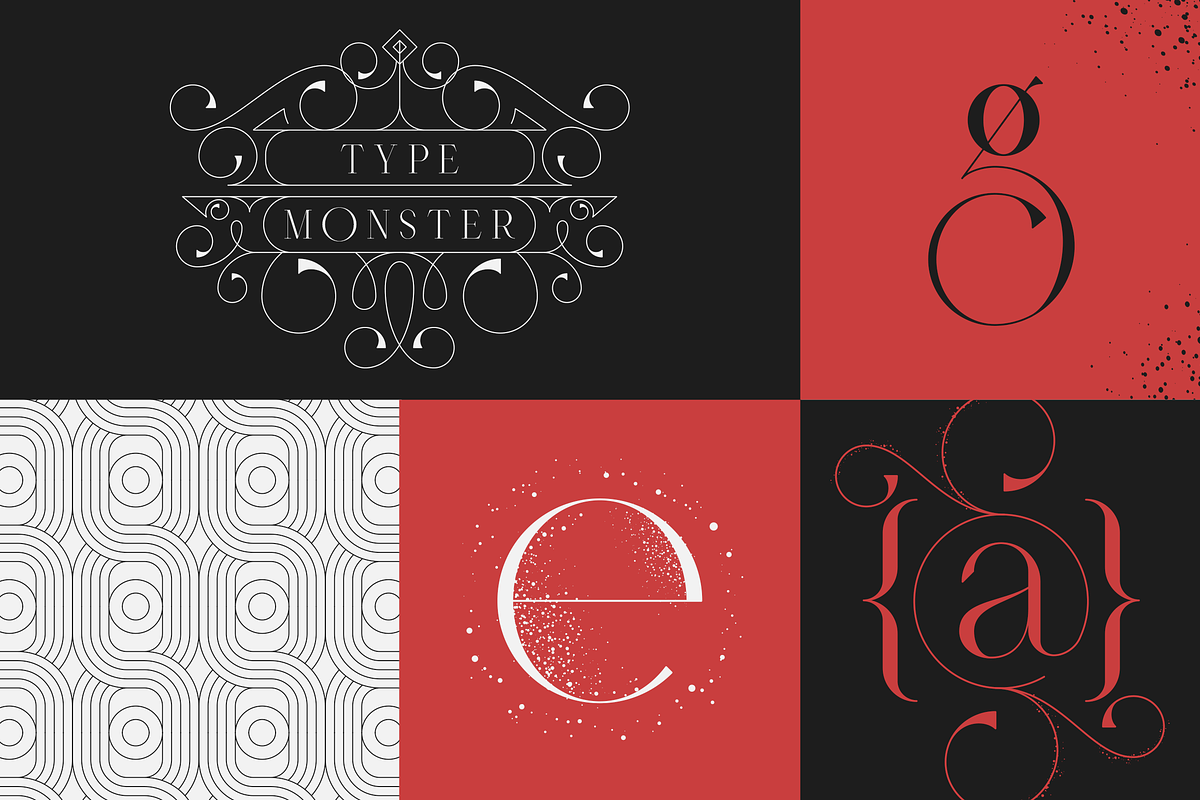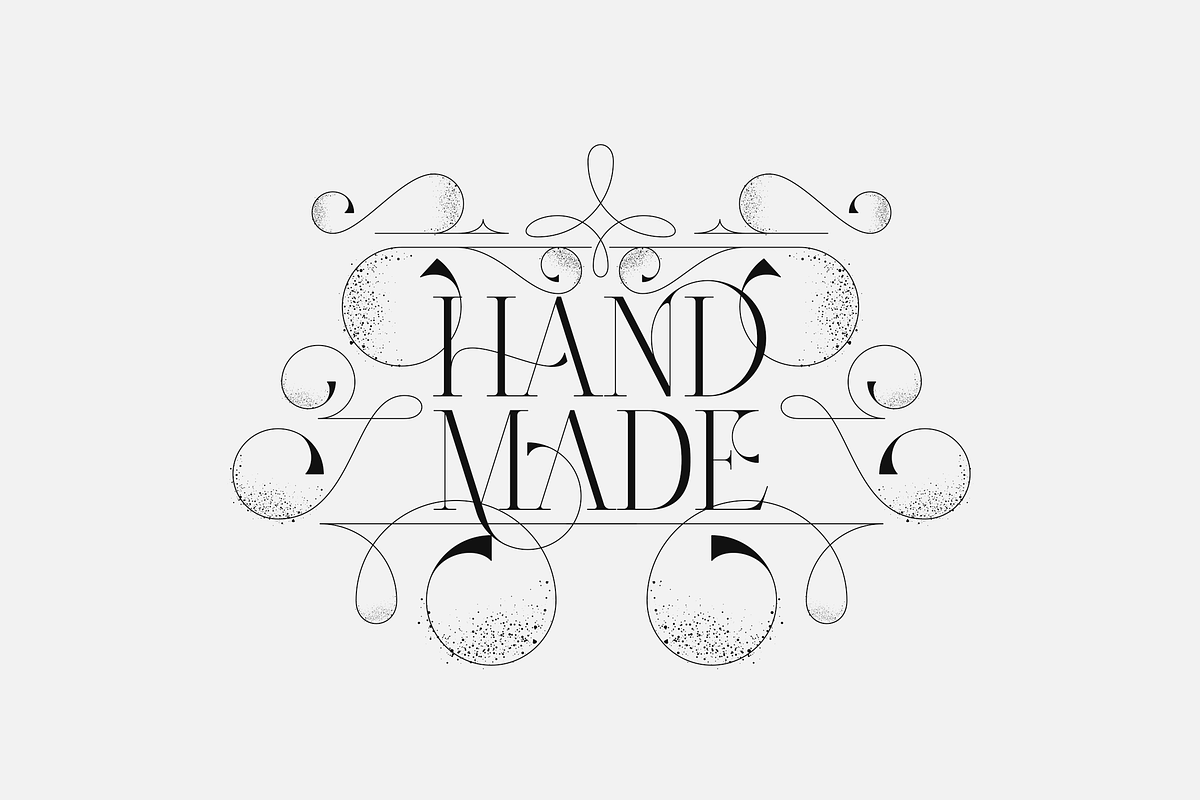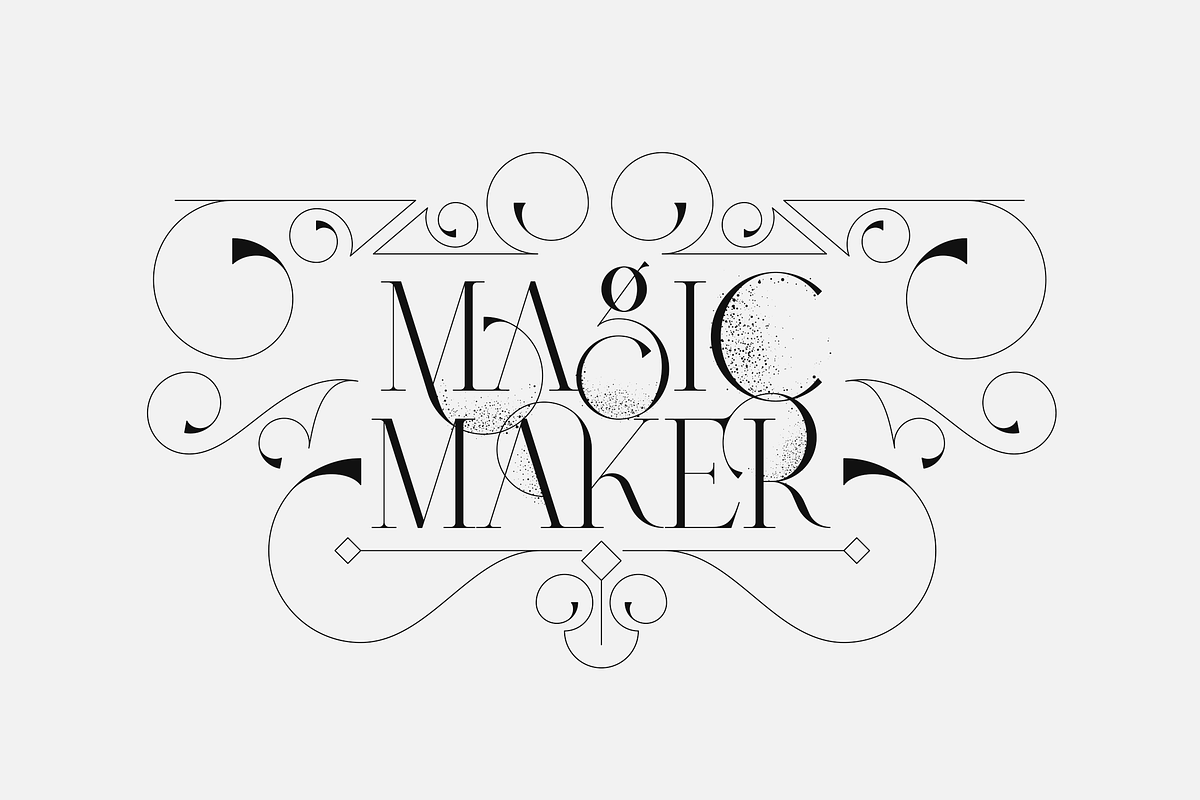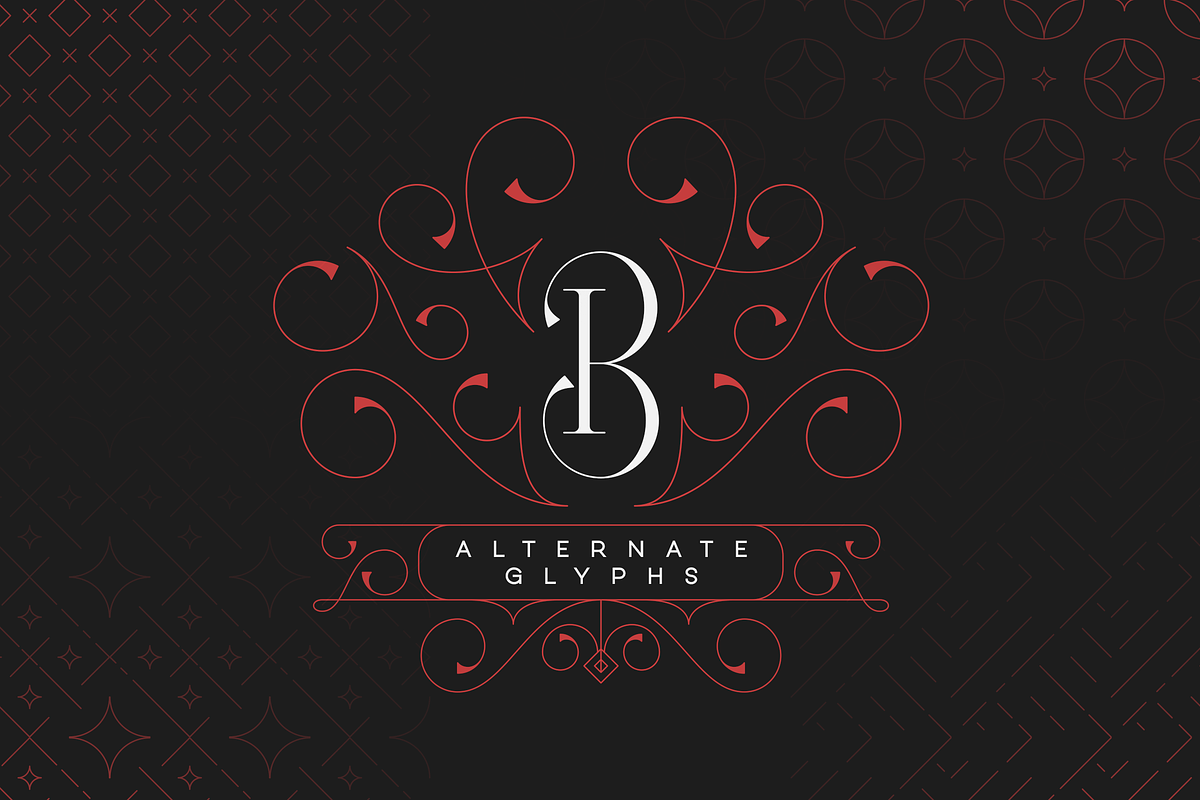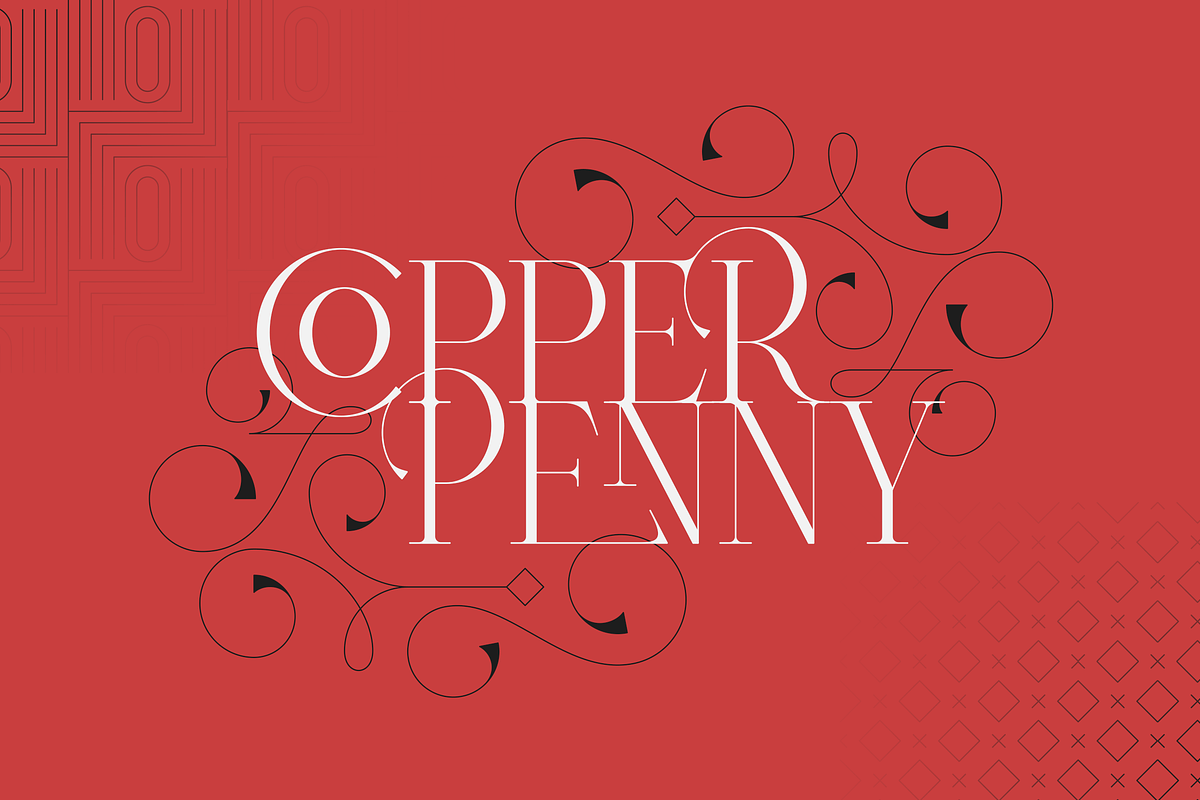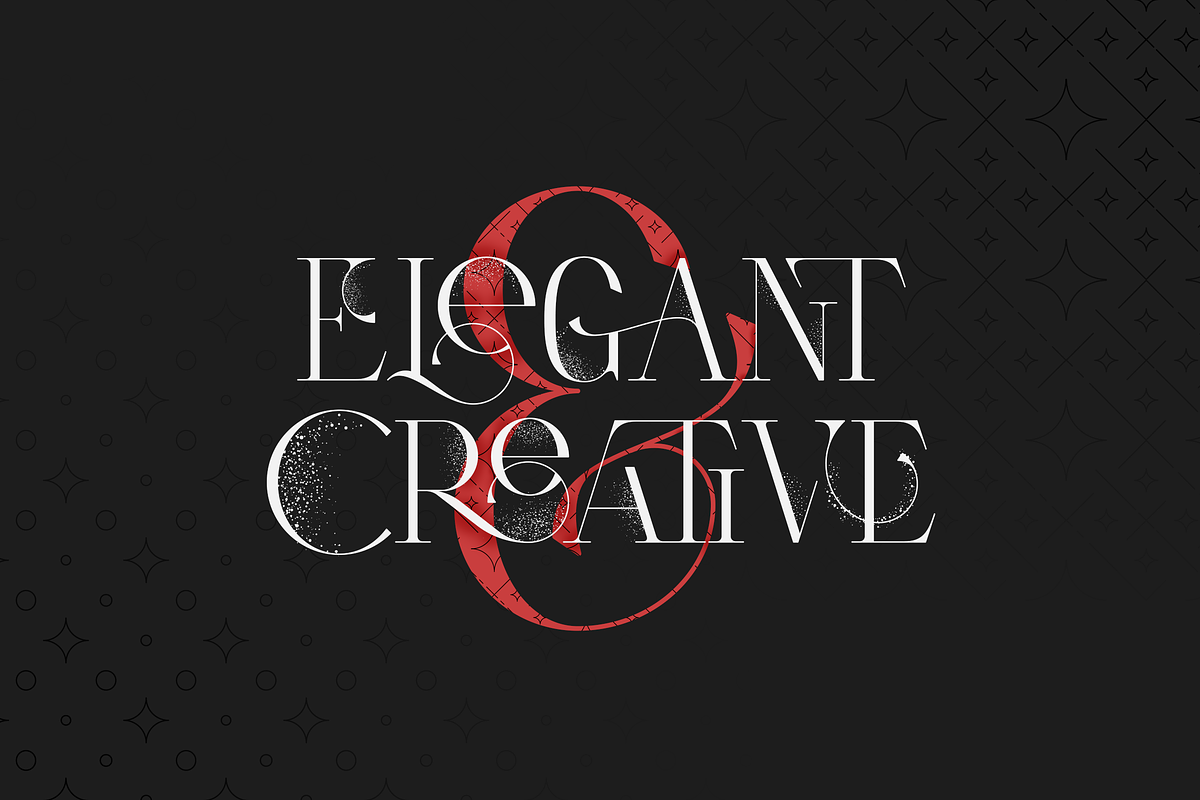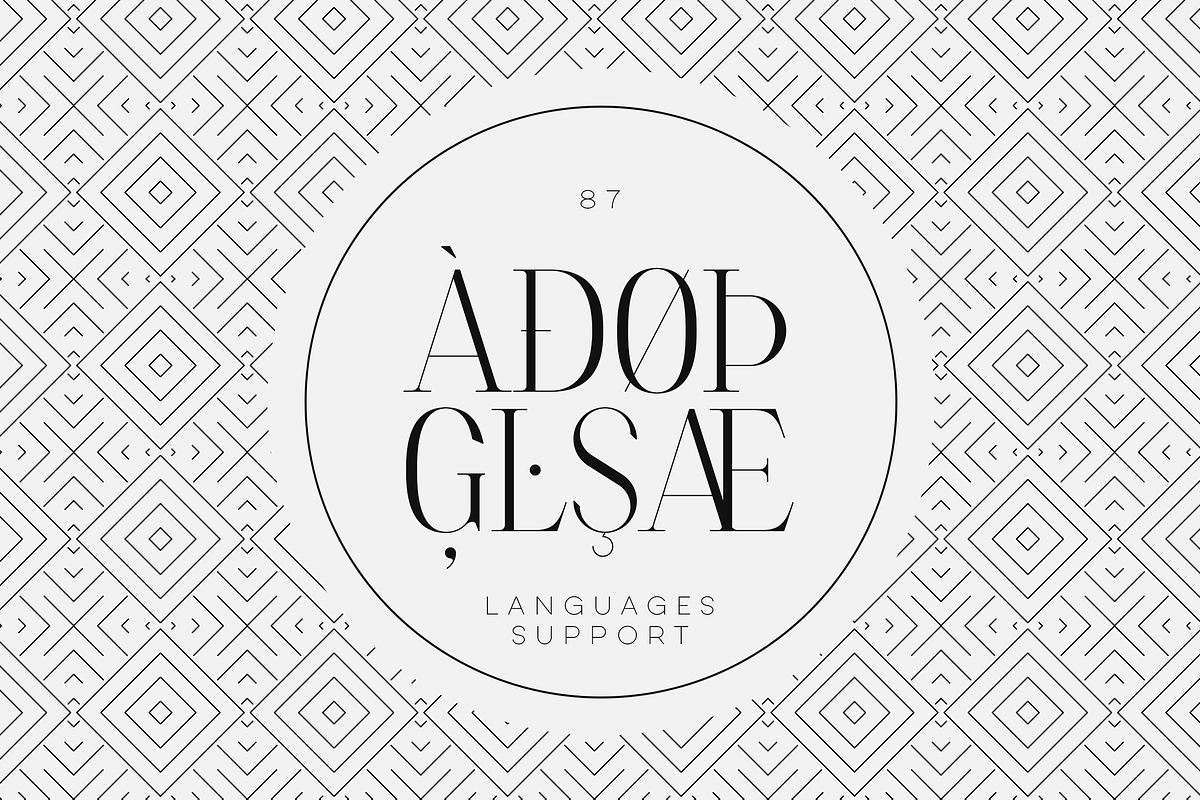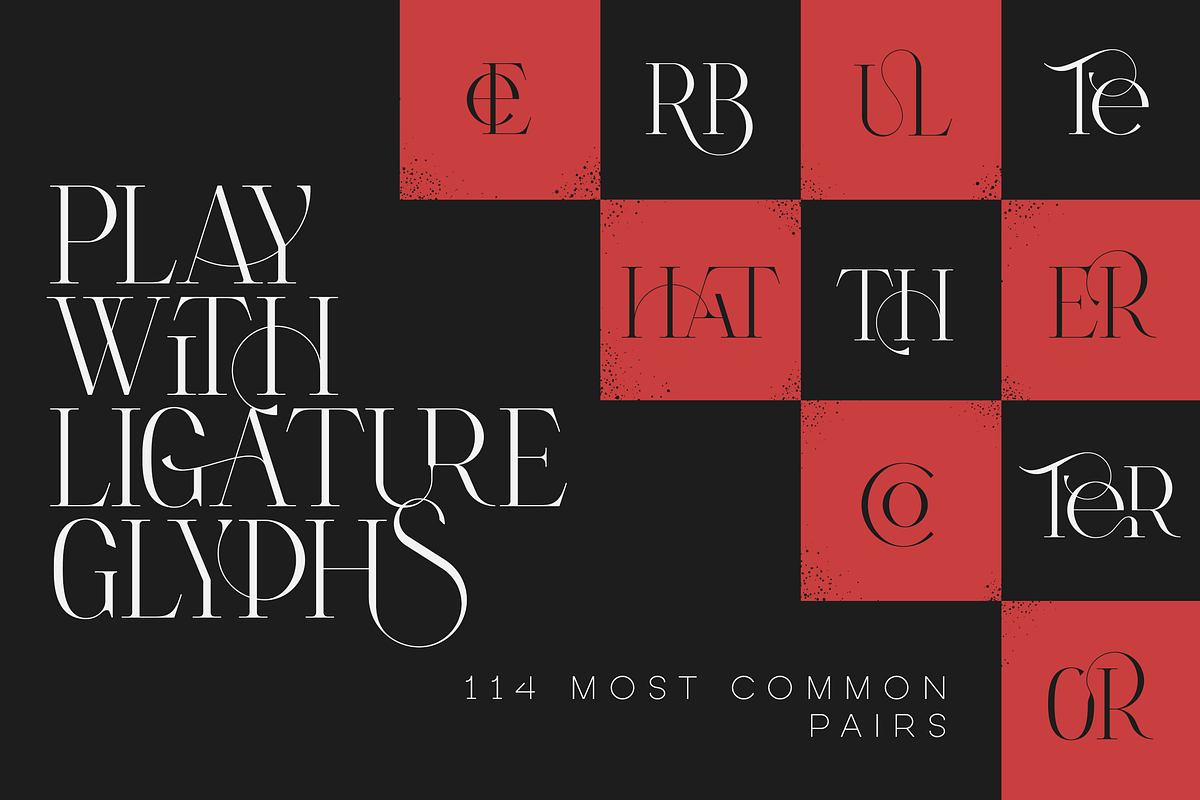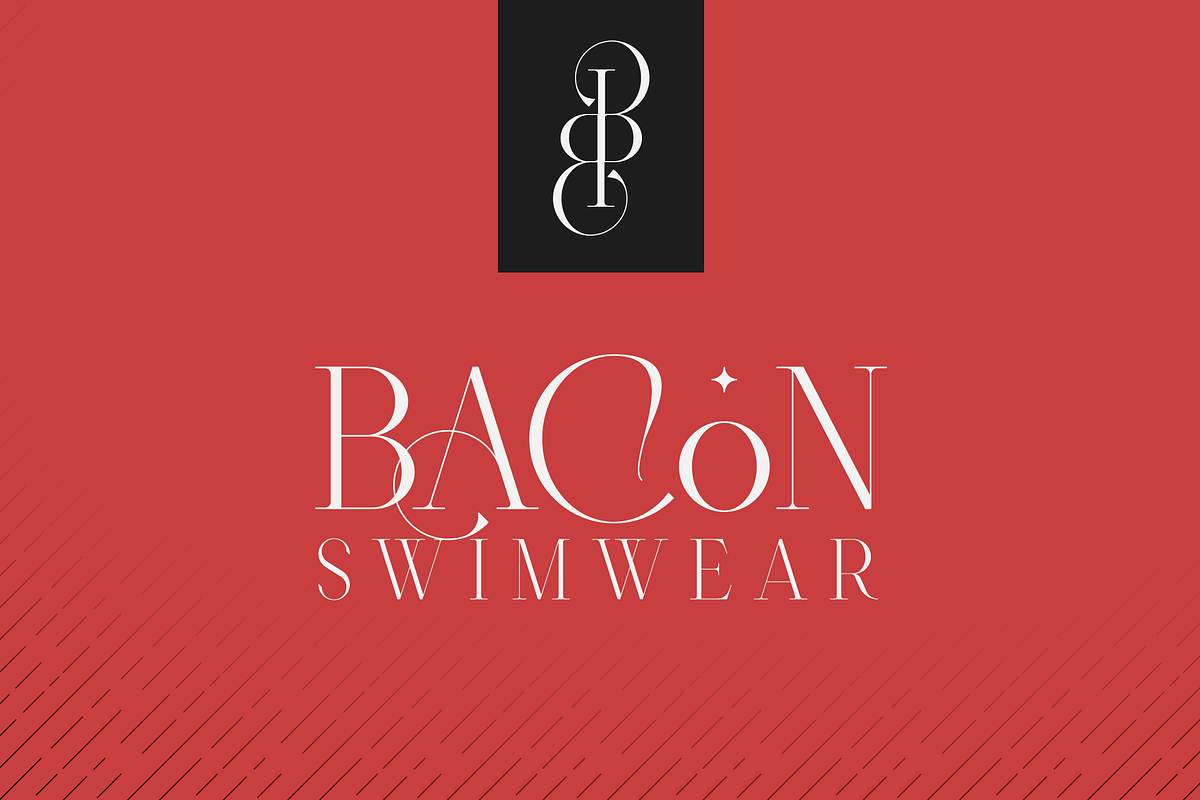
Type Monster - Elegant Font + Extras
"Type Monster" is a sophisticated serif font that offers a versatile blend of classic style and modern artistry, making it an excellent choice for a wide range of design projects. This typeface is meticulously crafted with 114 ligature glyphs that offer a seamless connection between letters, adding an elegant and custom-made feel to any text.
The font is equipped with alternate characters, providing designers with the flexibility to choose the perfect style for each application, whether for branding, editorial design, or invitations. With support for 87 languages, "Type Monster" is incredibly accessible and user-friendly, catering to a global audience.
Furthermore, "Type Monster" comes with an impressive collection of design elements to complement its alphabetic characters. It includes 52 swirls that can add a touch of flair and sophistication to any design, 26 badges that are perfect for logos or stamp-like designs, 26 glitter shapes to add sparkle and emphasis, and 26 patterns that can be used for backgrounds or to create intricate designs.
Every aspect of "Type Monster" is designed with attention to detail, making it not just a font but a comprehensive toolkit for creators looking to make a statement with their typography. Whether for professional graphic design, personal projects, or commercial use, "Type Monster" offers endless possibilities to craft visually stunning and unique compositions.